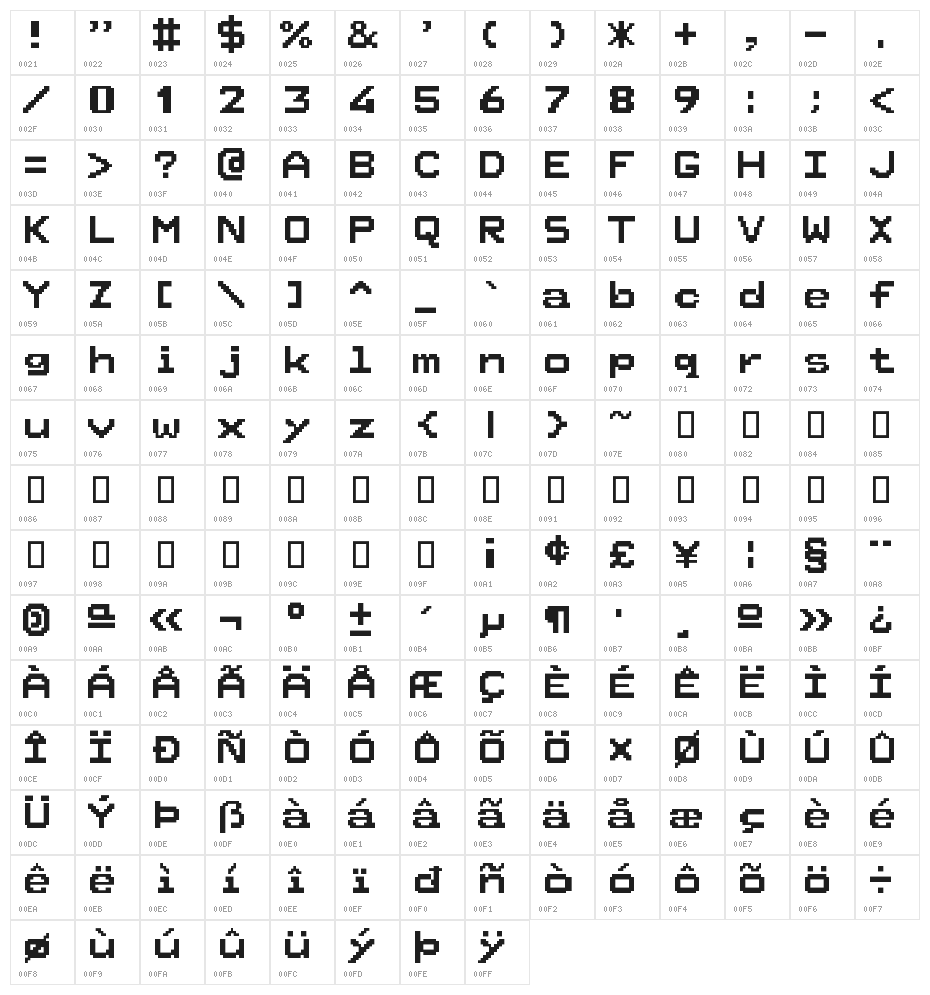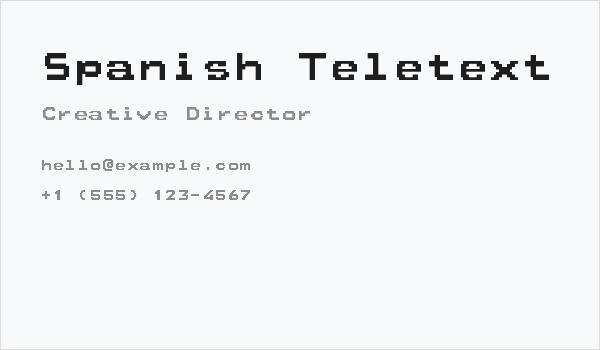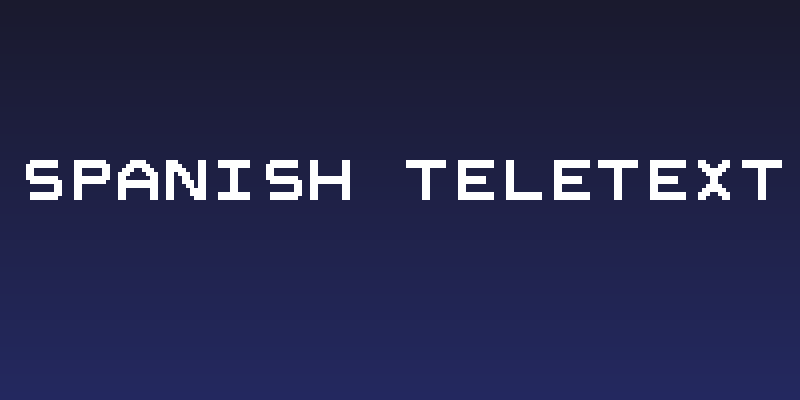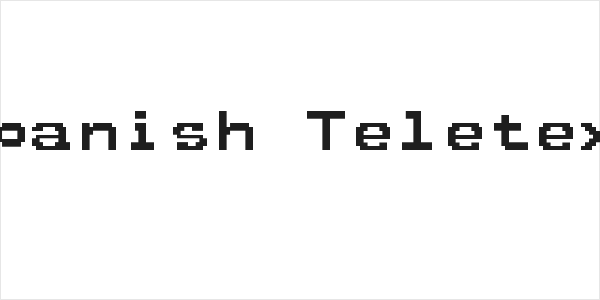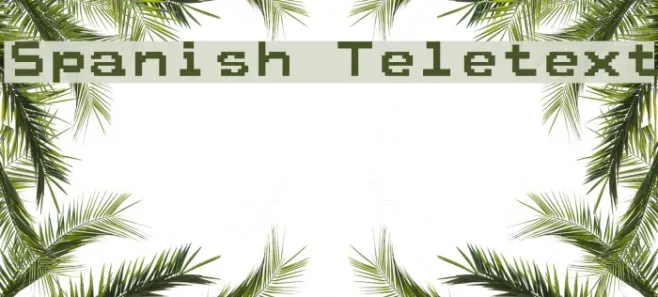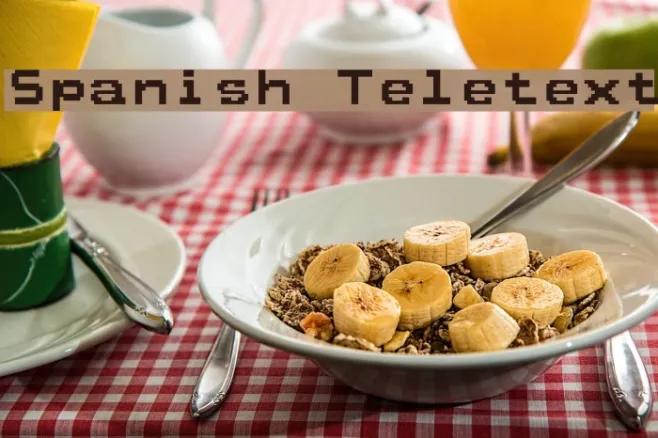
Spanish Teletext Font
Spanish Teletext Description
This font features a pixelated, blocky design reminiscent of early digital displays and teletext systems. Each character is constructed with a grid-like precision, giving it a retro, digital aesthetic. The uppercase and lowercase letters maintain a consistent width, contributing to a monospaced appearance, although the actual character spacing is slightly wider. The numerals and special characters follow the same pixelated style, ensuring uniformity across the font. Its simplicity and clarity make it ideal for digital displays or projects that aim to evoke a sense of nostalgia for early computing and gaming eras.
| Use Case | Headlines, Digital displays, Retro designs |
| Proposed Projects | Ideal for retro-themed designs, digital displays, video game interfaces, and tech-inspired branding. |